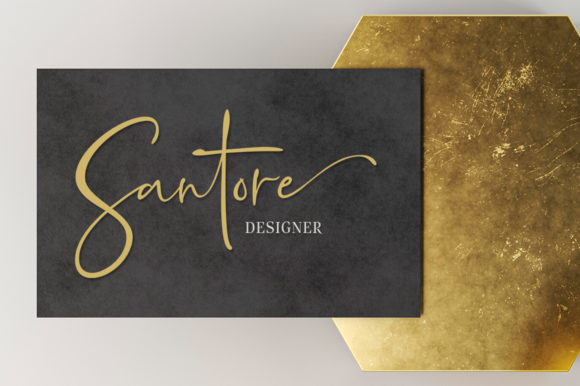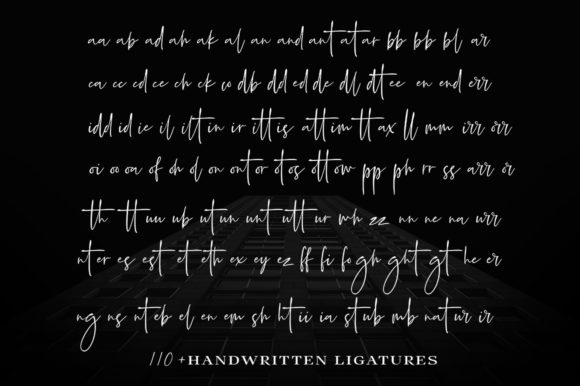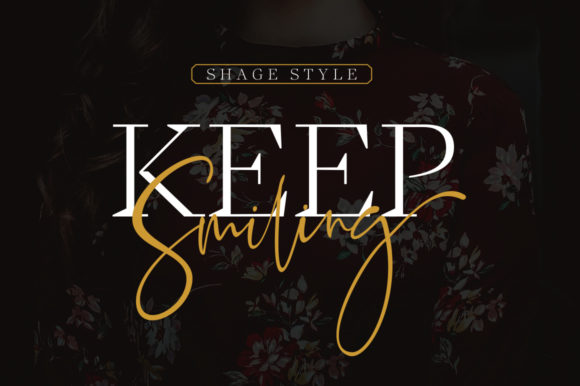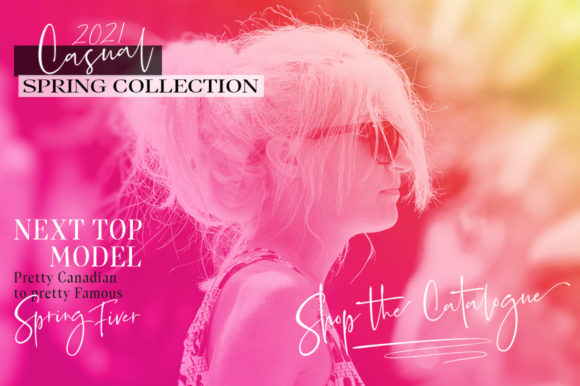
Shage Style Font
About Shage Style Font
Shage Style is a unique, elegant and modern handwritten font. It looks stunning on wedding invitations, thank you cards, quotes, greeting cards, logos, business cards and every other design which needs a handwritten touch.